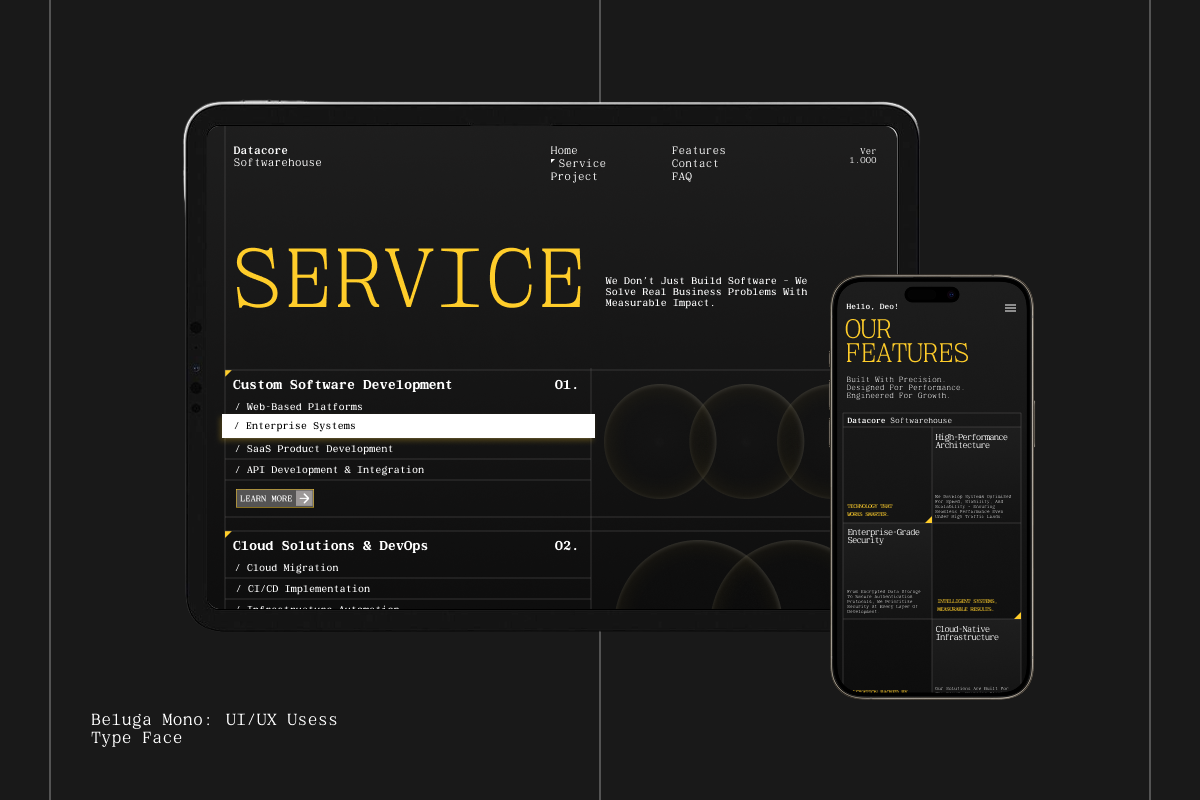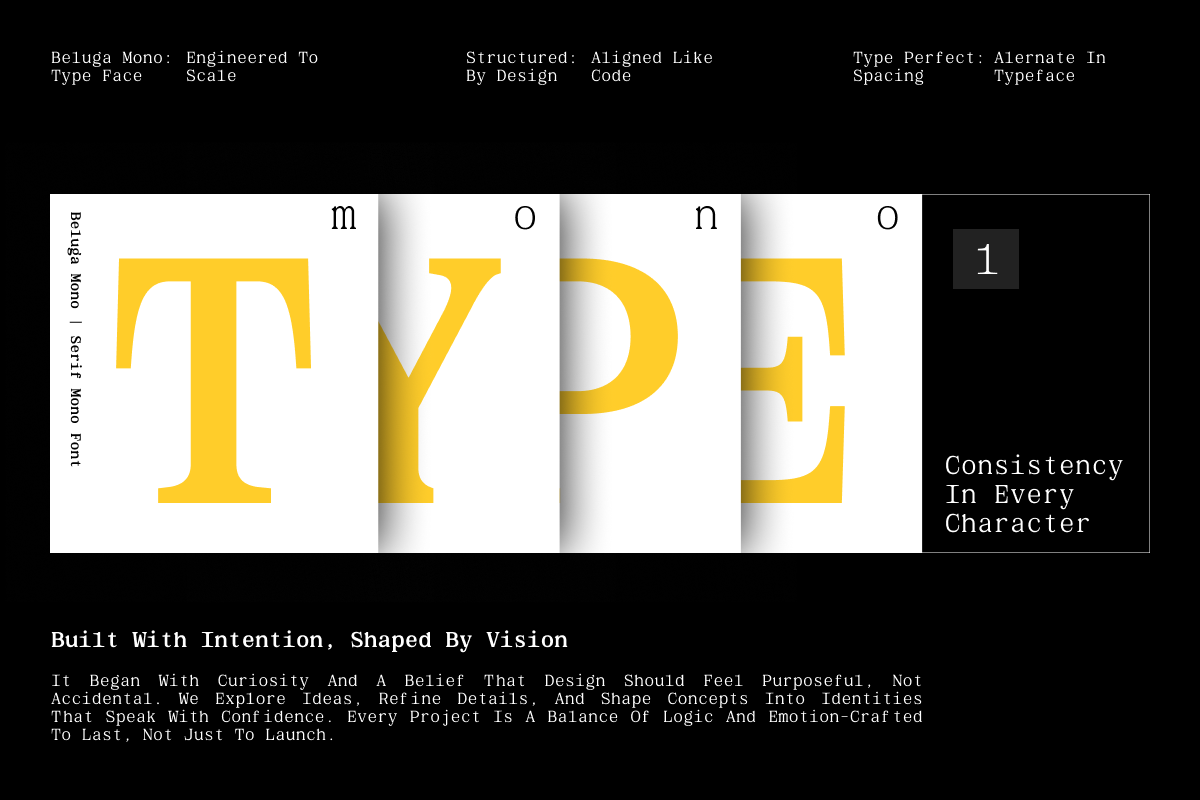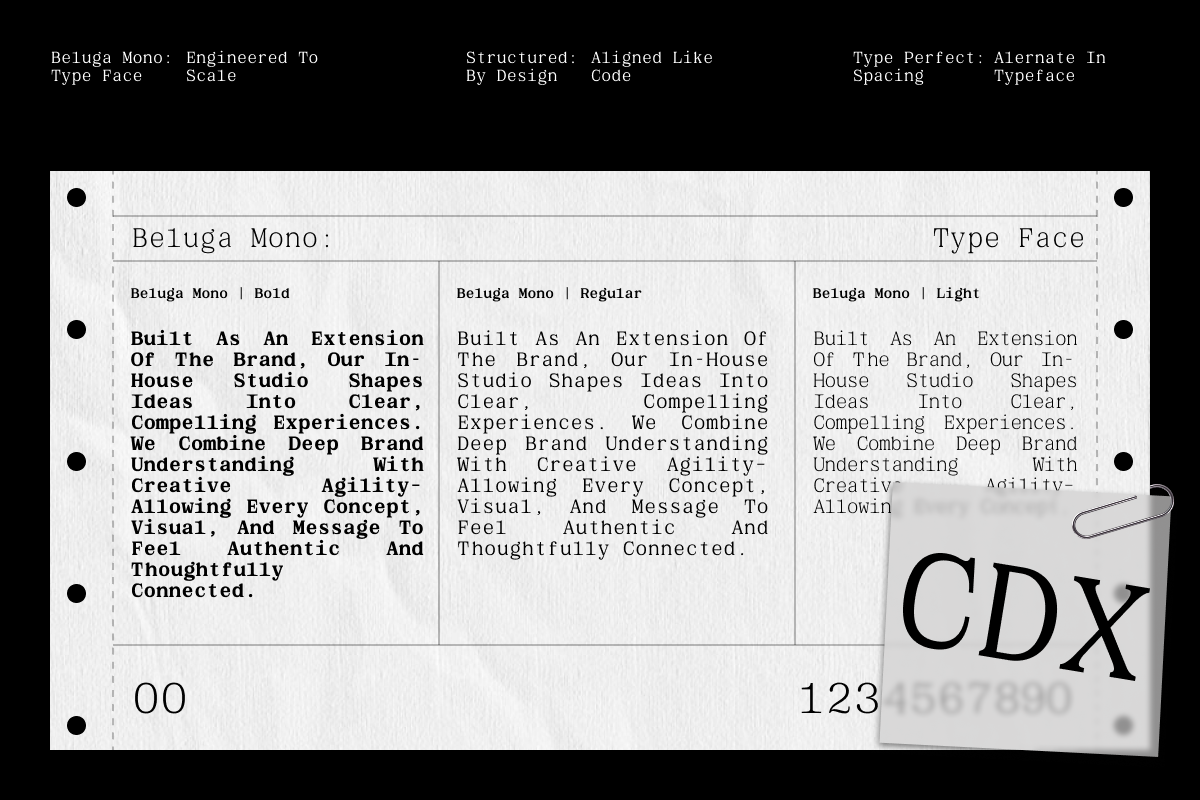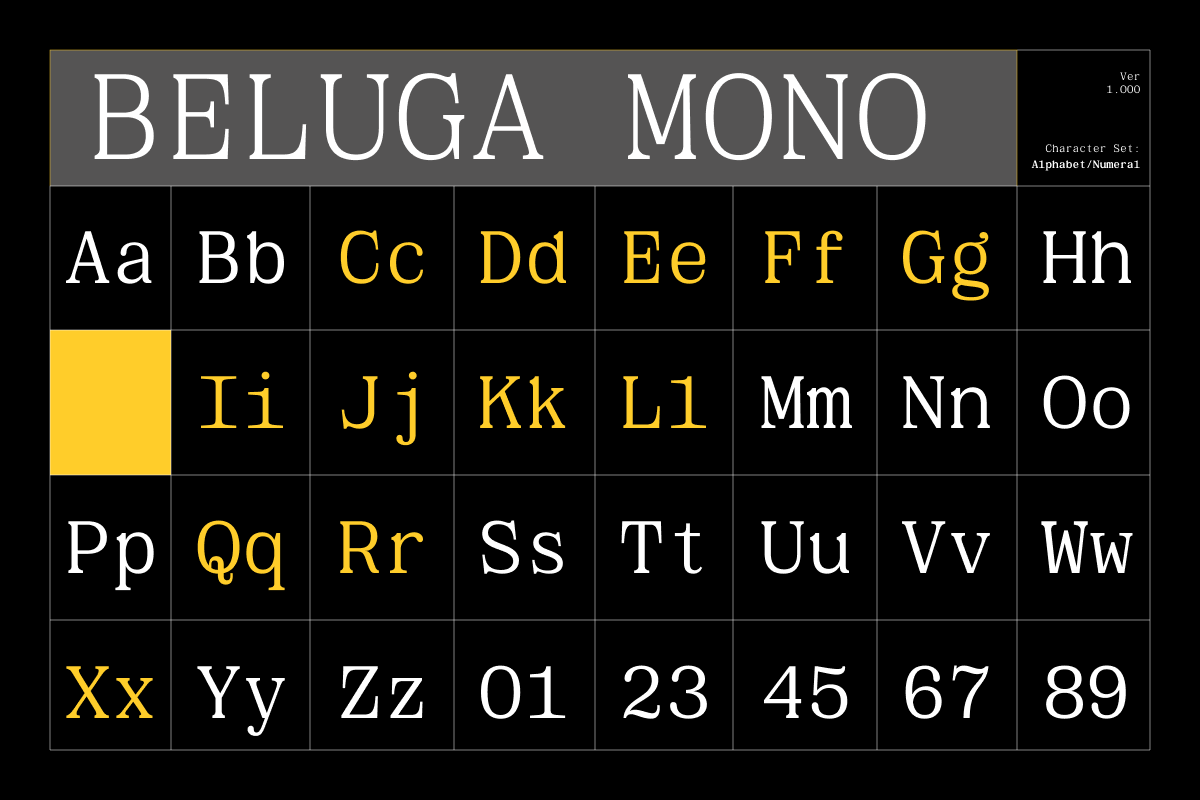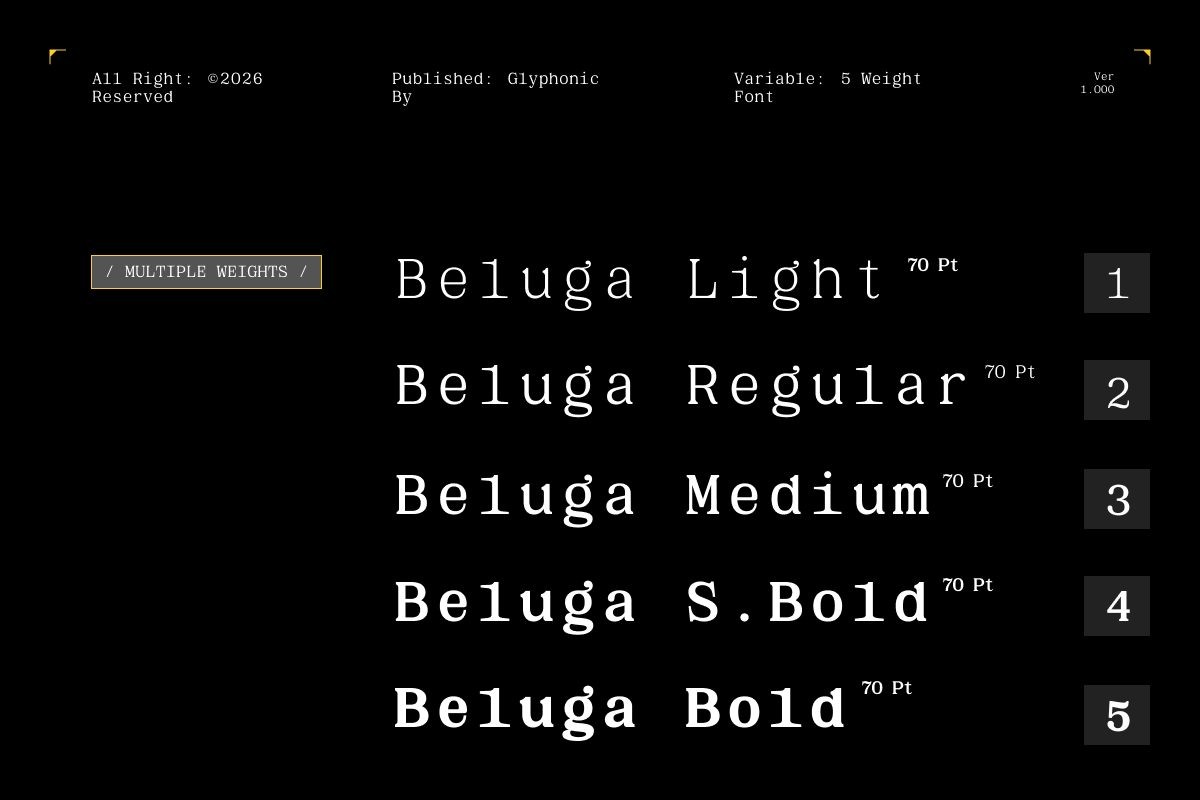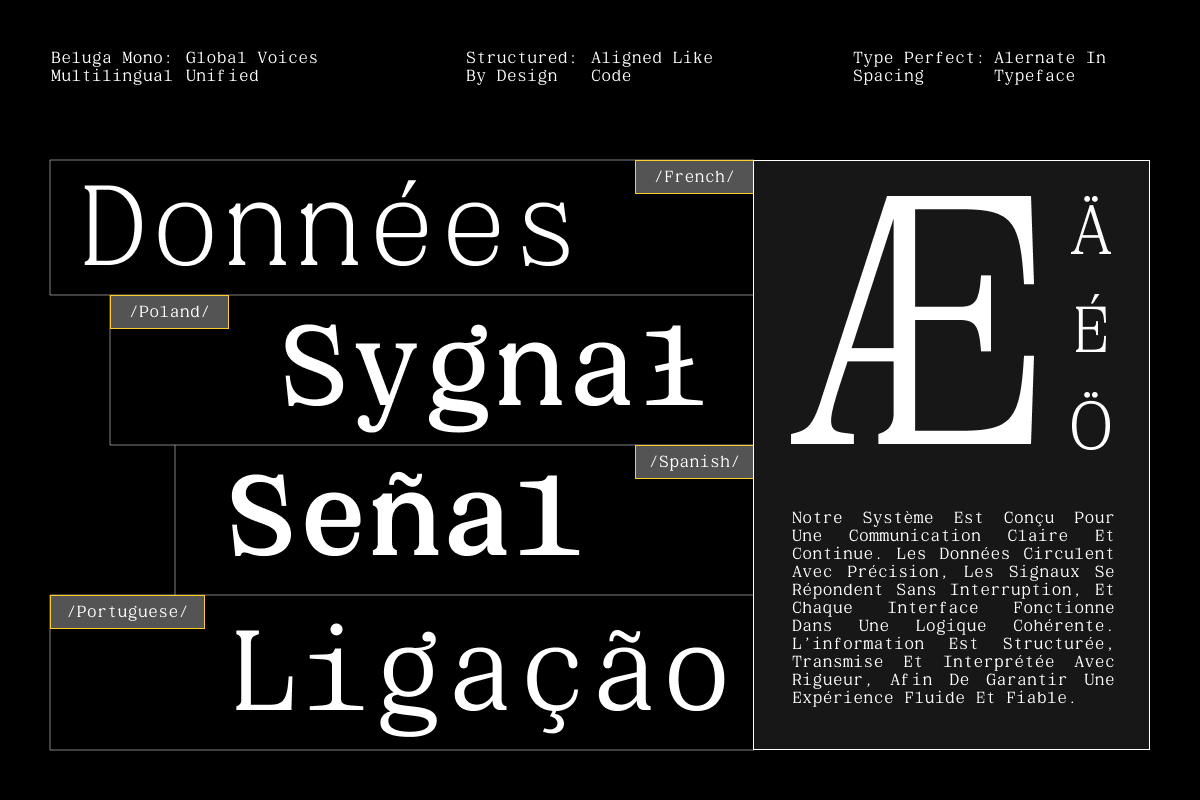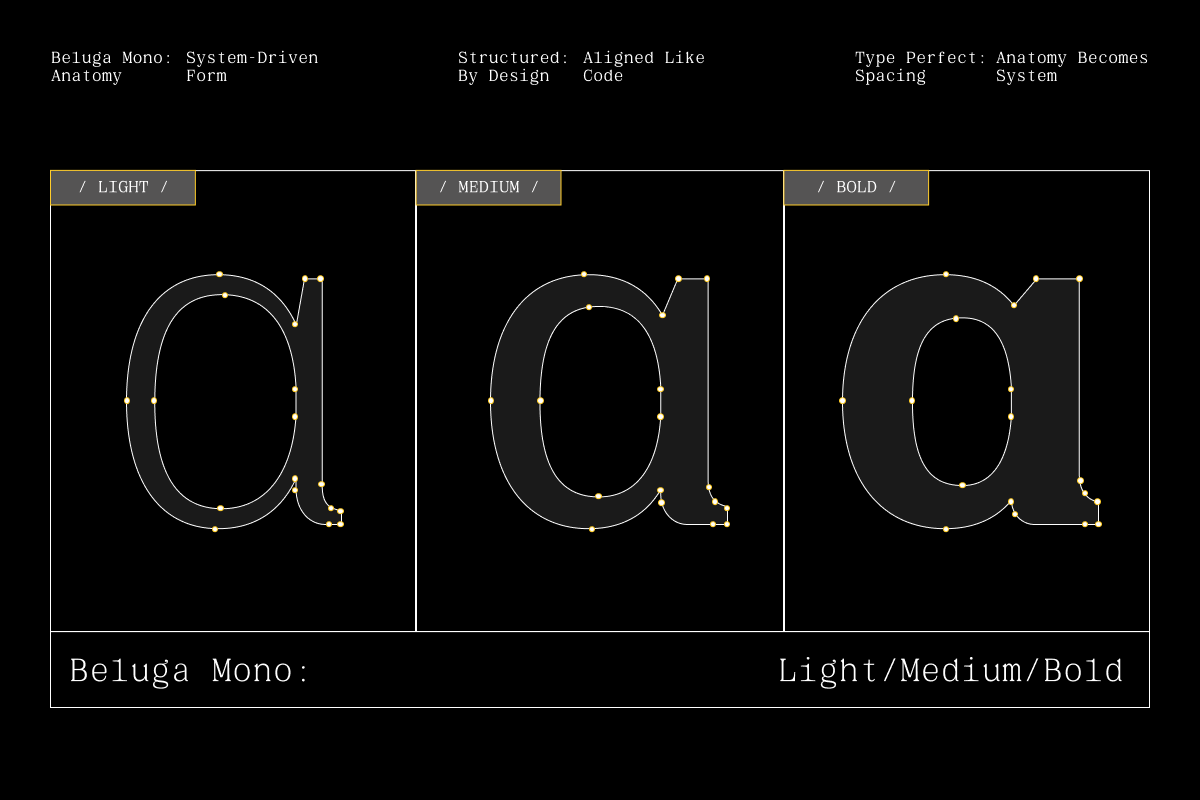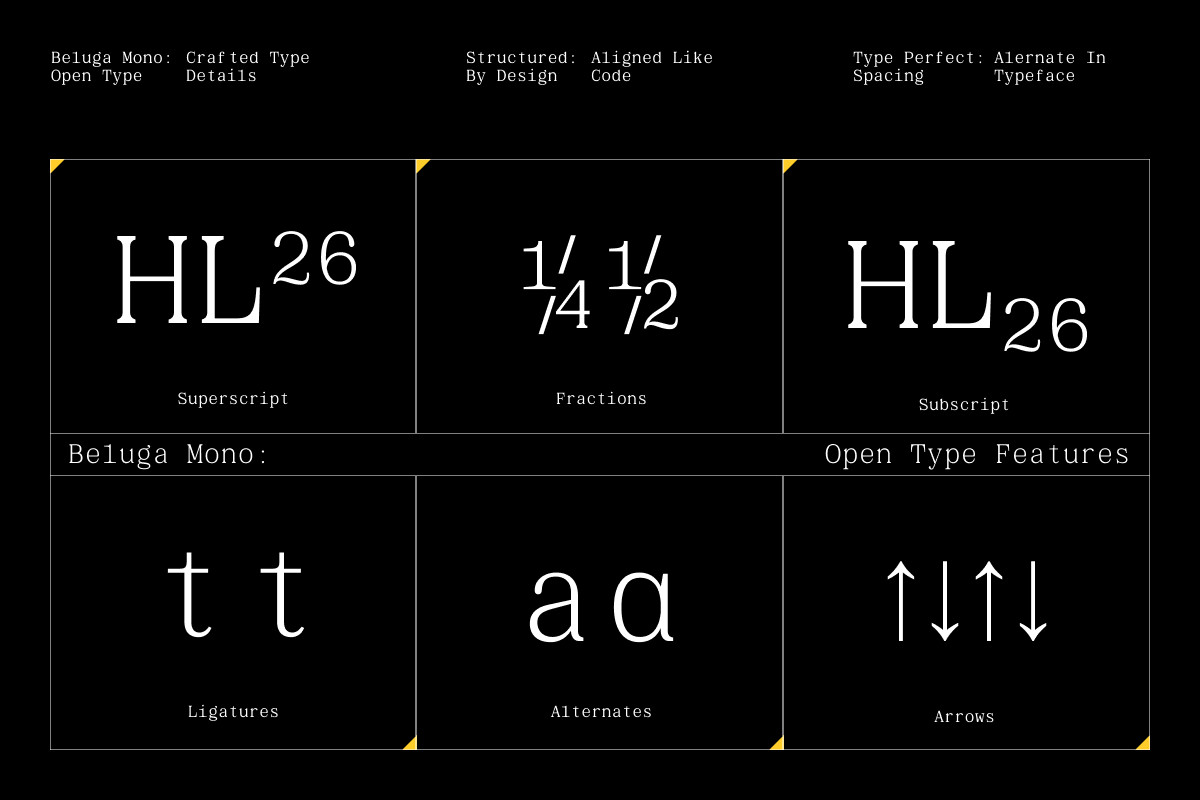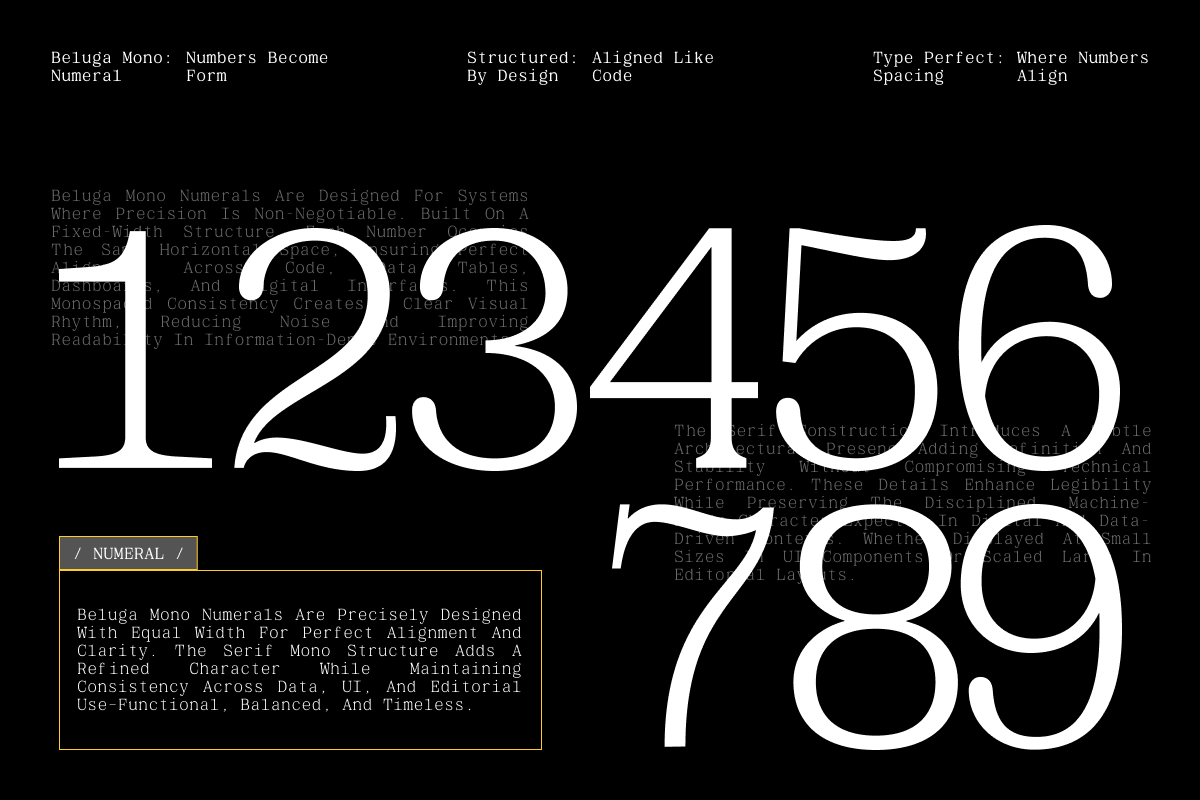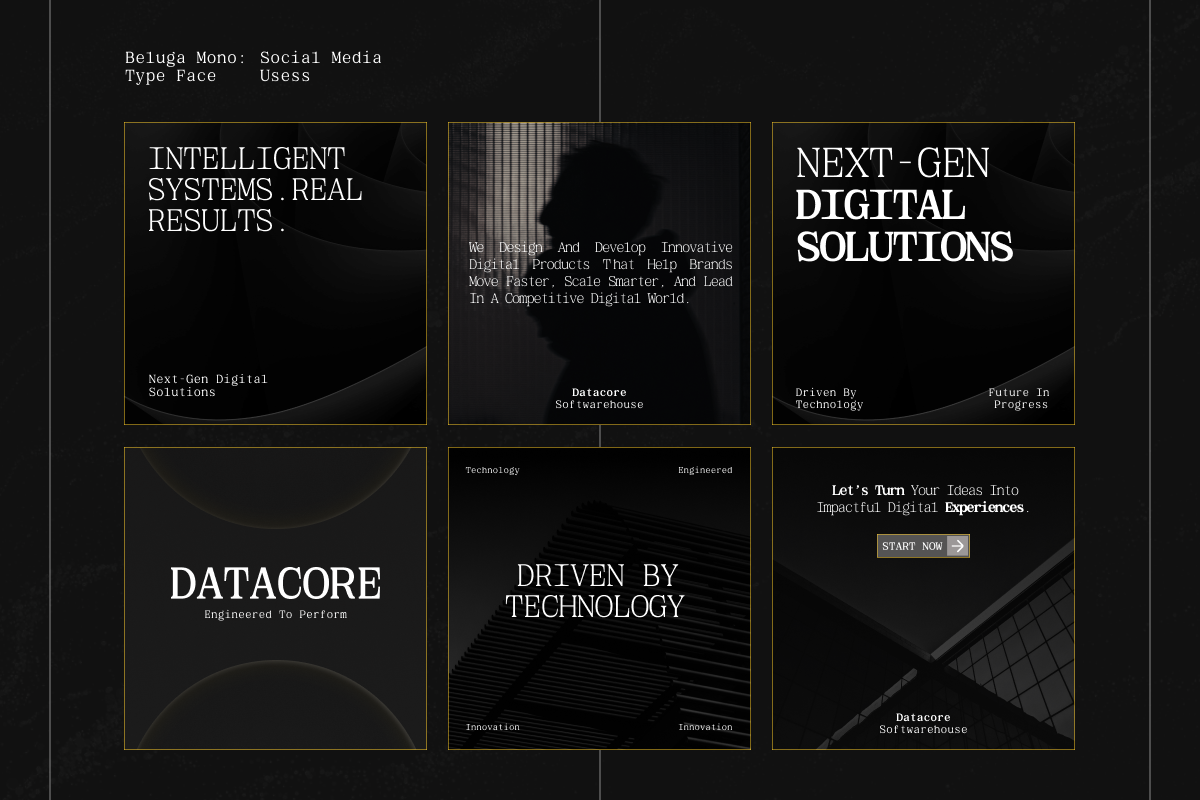
GC Beluga Mono - Elegant Modern Mono
GC Beluga Mono – Elegant Modern Mono Serif is a contemporary typeface that merges the precision of monospaced design with the refined elegance of serif forms. Built on a structured grid system and enhanced with subtle serif details, Beluga Mono delivers a unique typographic voice that feels both technical and sophisticated.
Designed to balance consistency and character, GC Beluga Mono features uniform spacing combined with graceful strokes and delicate serif accents. This fusion creates a harmonious rhythm across text, making it ideal for designs that require both precision and visual refinement.
Crafted to perform seamlessly across digital and print media, its structured monospaced nature ensures alignment and clarity, while the serif detailing adds warmth and a timeless aesthetic. This makes it especially suitable for editorial layouts, branding systems, tech-inspired visuals, coding themes, and modern luxury design projects.
As a variable typeface, GC Beluga Mono offers flexible weight control, allowing designers to fine-tune hierarchy and adapt typography across various layouts and platforms. Despite its structured system, the font maintains excellent legibility and a distinctive personality.
Whether used for elegant headlines, structured interfaces, or minimalist compositions, GC Beluga Mono brings precision, rhythm, and modern serif sophistication to your typography.
- Variable Font (Adjustable Weight Axis)
- Monospaced Serif Construction
- Elegant Modern Detailing
- Multilingual Support (170+ Languages)
Bring structured precision, modern elegance, and refined serif character to your design with GC Beluga Mono.